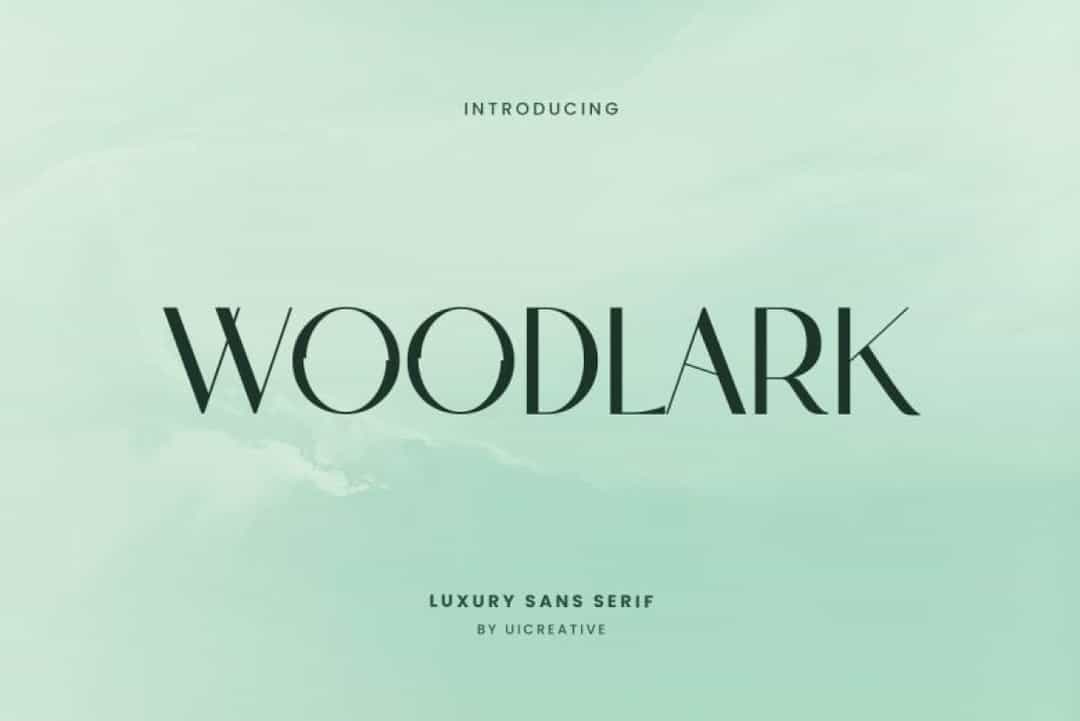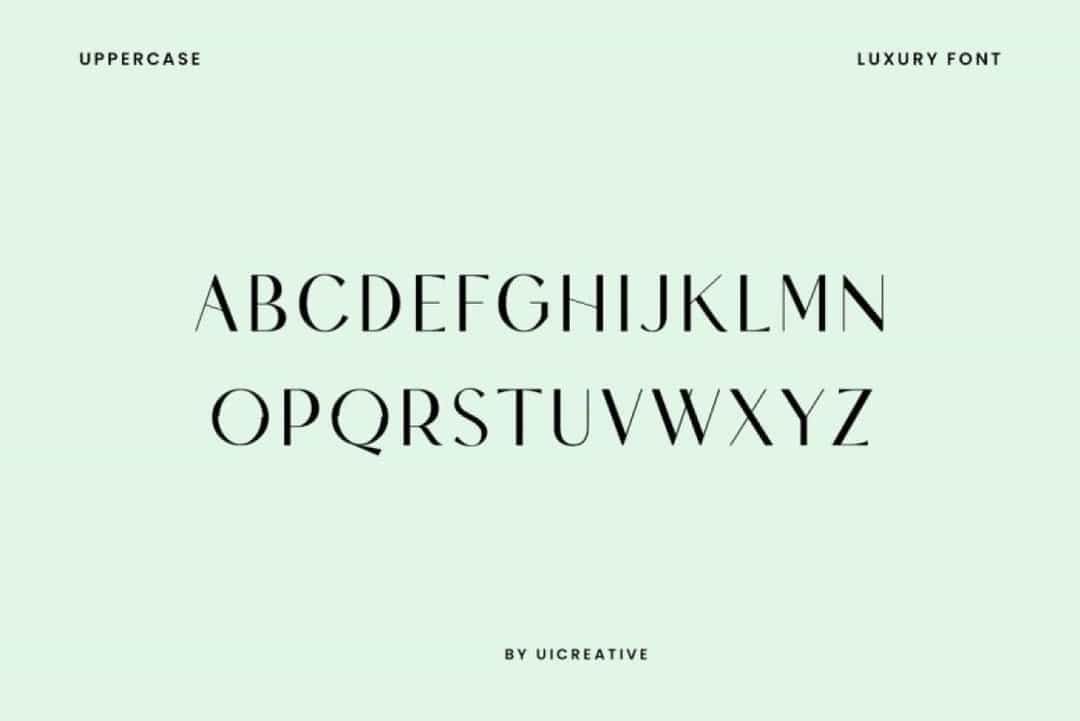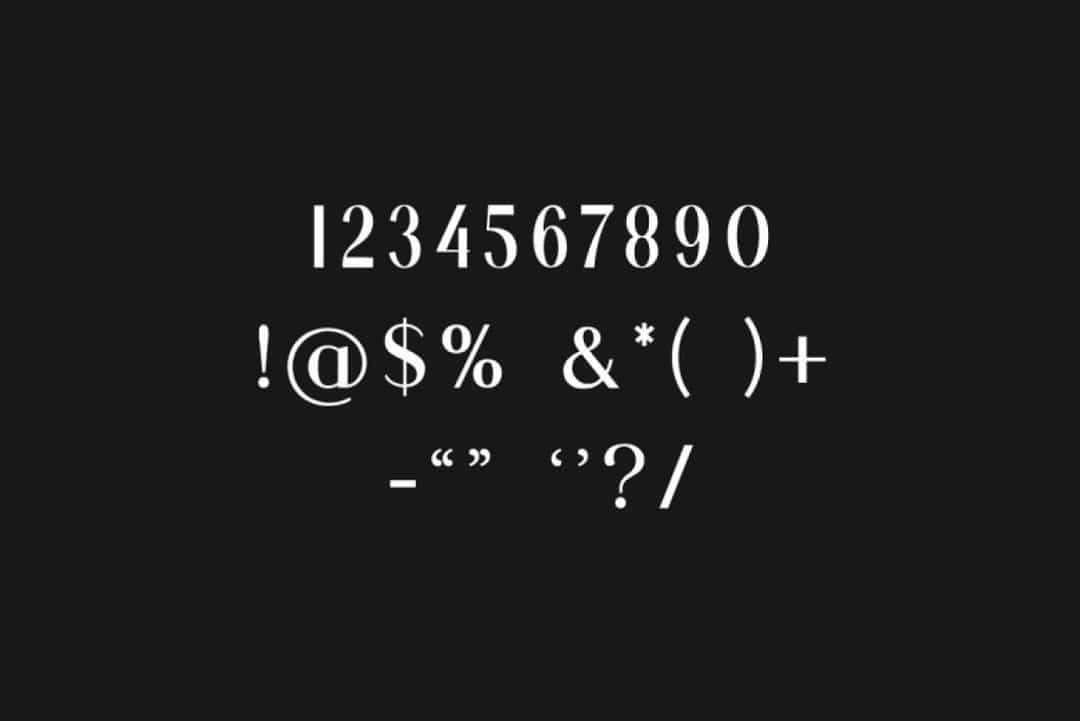
Woodlarkis an elegant sans-serif font which exudes class and contemporary design, making it suitable for use on numerous projects such as logo design, signature creation, stationery wedding invitations, typography quote magazines or book covers, website headers on websites as well as packaging clothing branding design among many more.